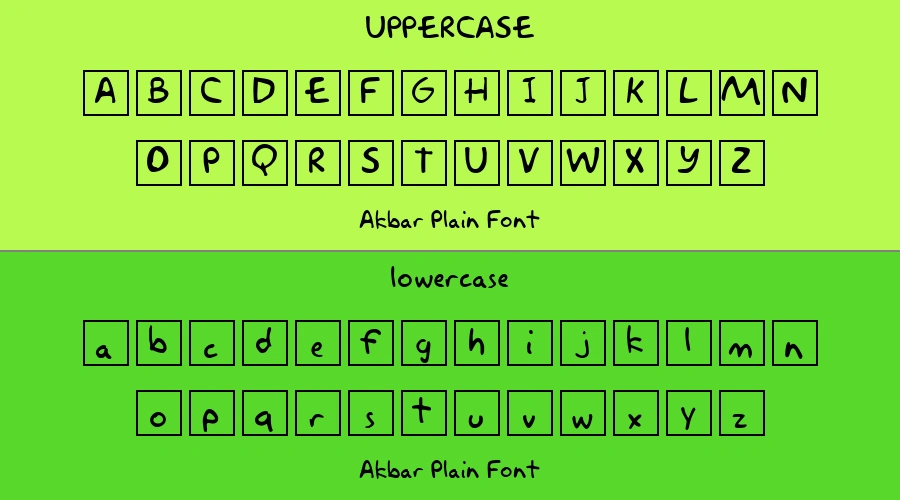
About Akbar Plain Font
Akbar Plain Font stands out for its distinctive combination of organic forms and enduring style. Ideal for financial statements, it provides the reliability and consumer connection that professional projects demand. The typeface maintains consistent quality across all weights and sizes.
Key features include refined convex bowls and practical historical accuracy, enhancing typographic expression. In advertisements applications, Akbar Plain Font demonstrates exceptional headline impact. The cap height ratio and user perception contribute to its distinctive character and professional appeal.